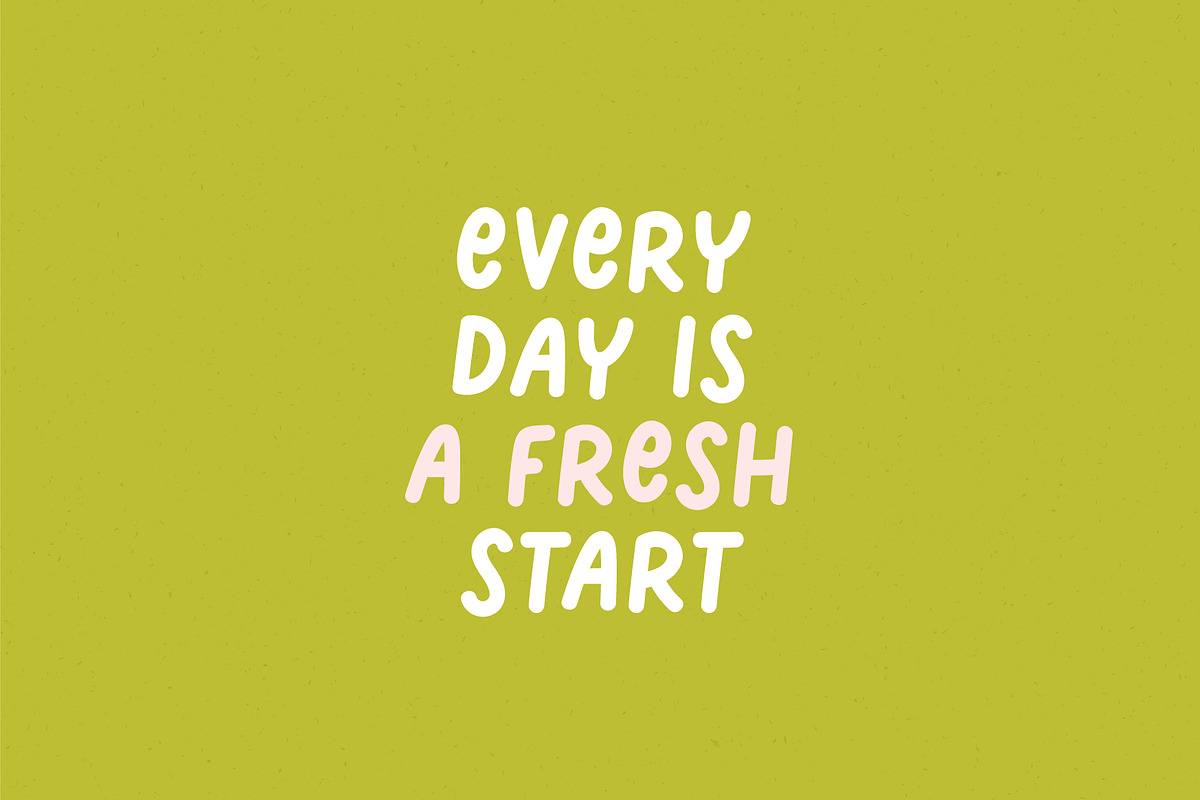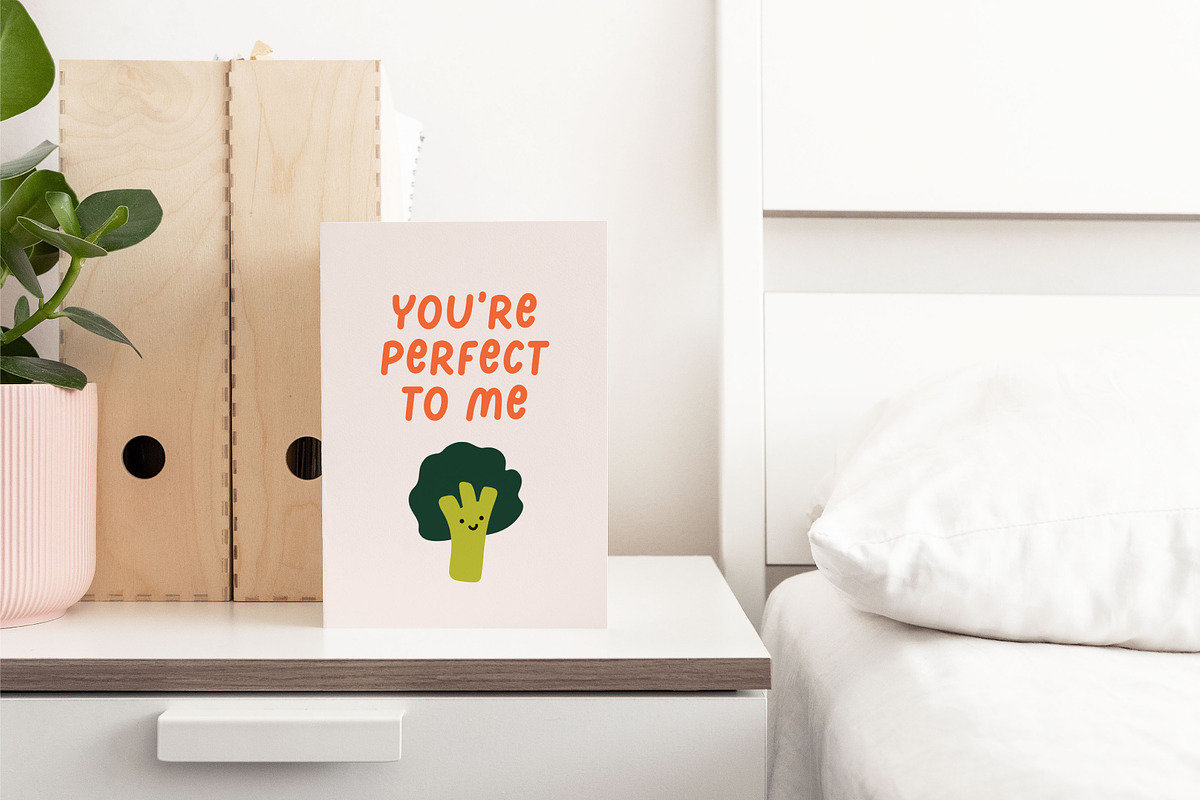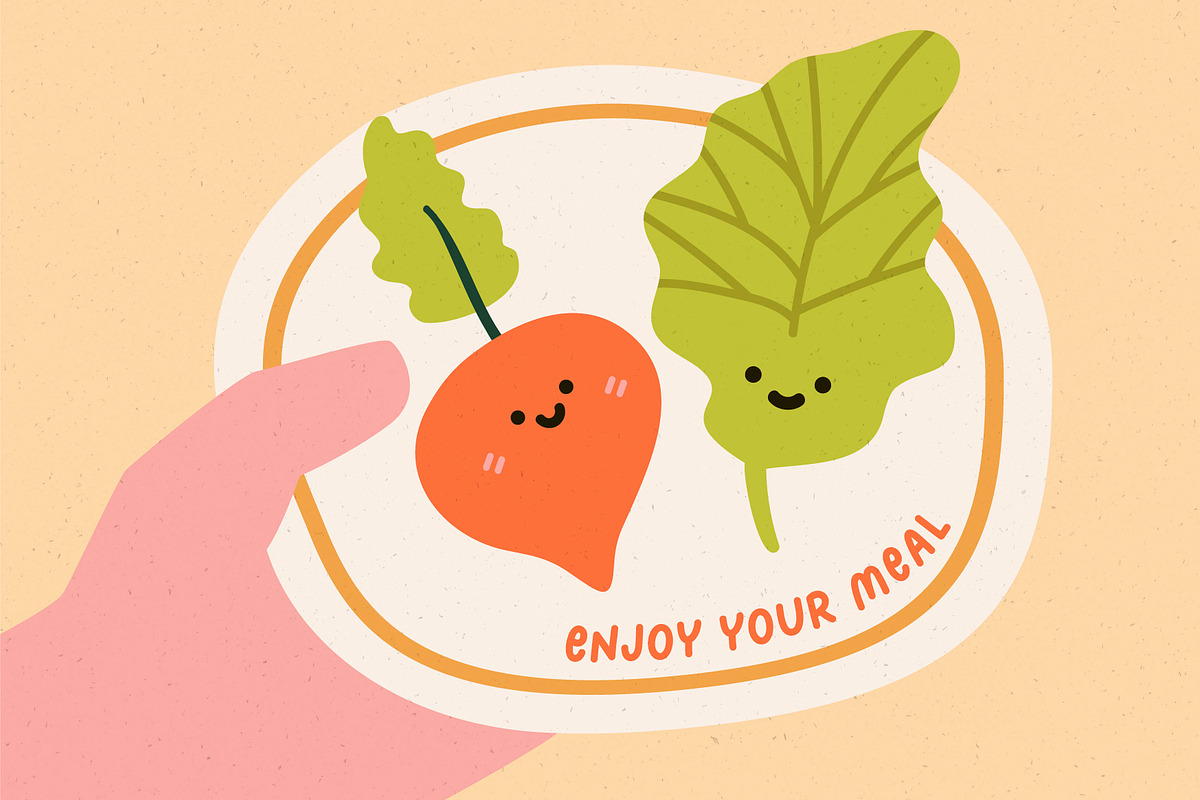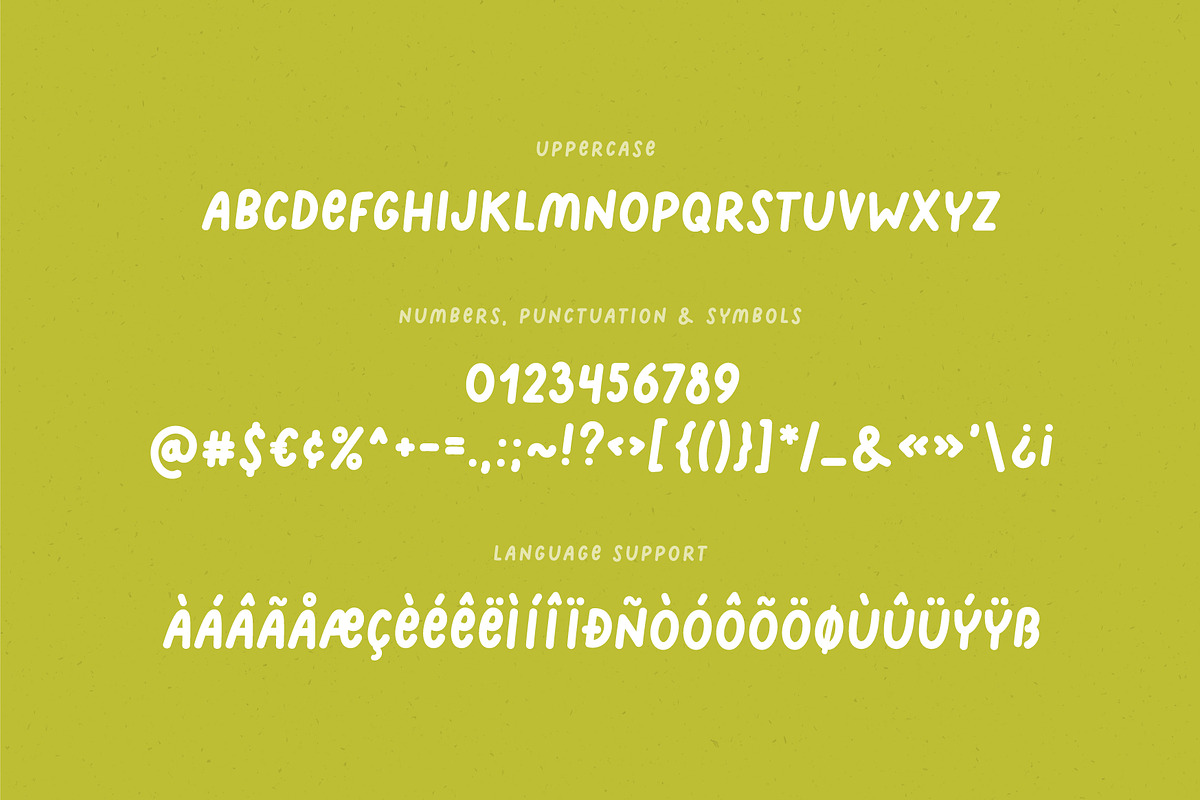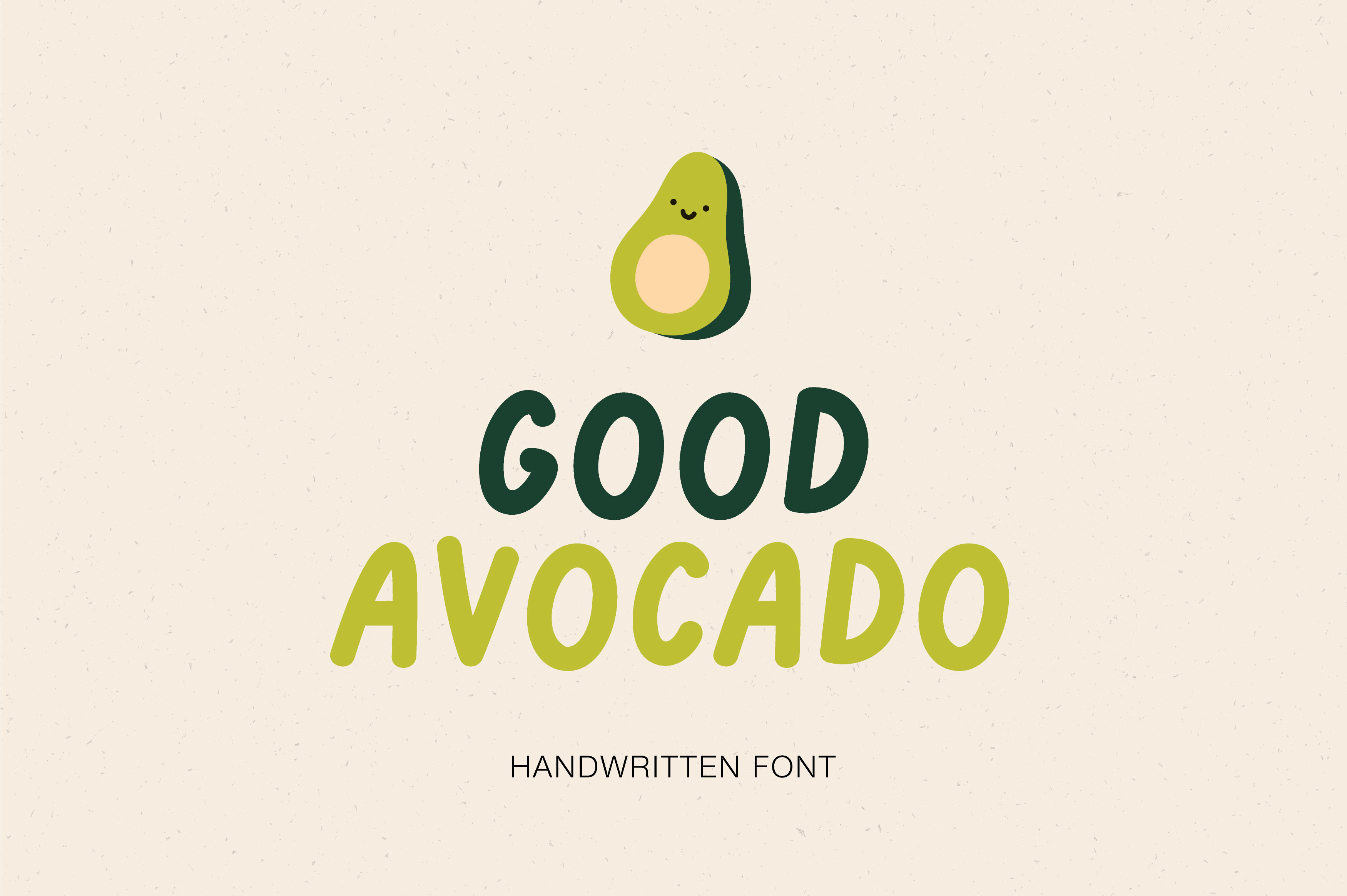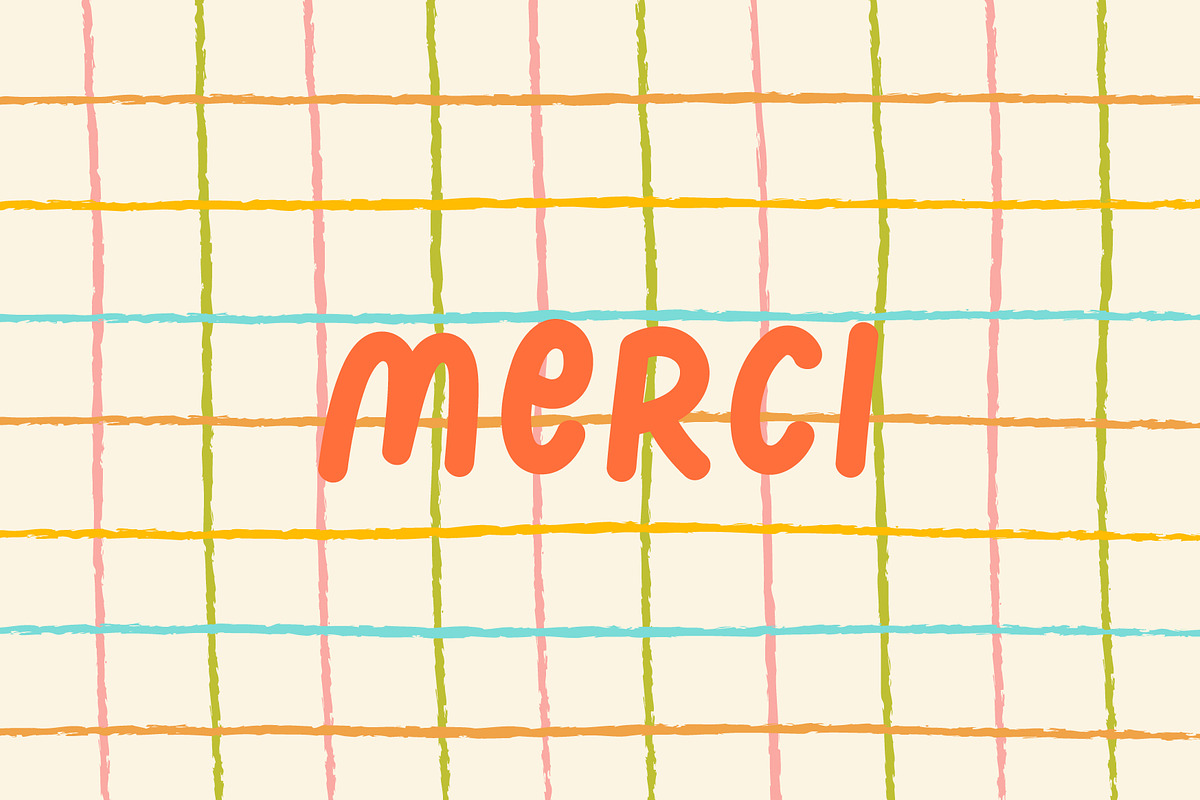
Good Avocado | Handwritten font
Good Avocado - playful handwritten typeface. Perfect for quotes, greeting cards, invitations, posters, business cards, presentations and more. This font will make your design looks great and fun!